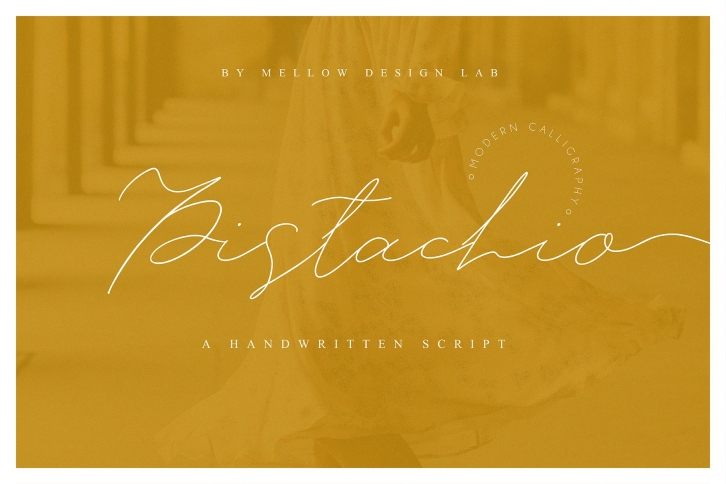
Introducing the lovely new Pistachio Script
This font is especially for you if you need to add tenderness to your project. A font that looks absolutely handwritten and created by hand. Combine it with other fonts and add style in your project. This handwritten font is ideal for branding and decorate your any project.
This font are perfect for wedding invitation or your blog. Also with their help, you can create a logo or beautiful frame for your home. Or just use for your small business, book covers, stationery, marketing, magazines and more.